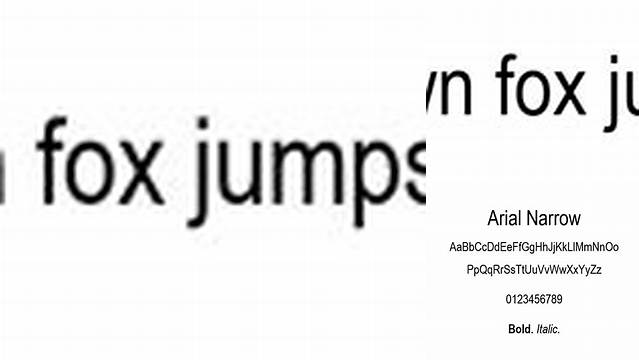
What is Arial Narrow?
So, what exactly is Arial Narrow? Well, it's a condensed version of the popular Arial typeface. Think of it as Arial's slimmed-down sibling. Because of this, it's super useful for fitting more text into a smaller space. This makes it ideal for headlines, subheadings, and any area where you need to convey a lot of information without taking up a ton of room. The font's design is clean, clear, and incredibly versatile, which is why it's been a go-to choice for so many years.
Arial Narrow maintains the same characteristics of Arial, such as its readability and neutral feel, but with a narrower width. This condensed design is perfect for creating a modern look and enhancing visual hierarchy. You'll find it frequently used in various contexts, from business documents and presentations to website design and branding materials. One of the main advantages of using Arial Narrow is its ability to save space. When designing websites or documents, sometimes you need to cram a lot of words into limited space. Arial Narrow helps you achieve this without sacrificing legibility. Its condensed nature allows you to keep headlines concise and present a lot of information in a clean, organized way. Its flexibility makes it a versatile option for designers who value both aesthetics and functionality. It is also incredibly easy to read, making it a great choice for extensive body text. The font has been around for a while, and its familiar look gives it a sense of reliability and trustworthiness, making it a fantastic option for both personal and professional projects. This is an excellent choice for anyone looking to optimize their content’s space and readability. In short, it's a font that offers both style and efficiency.
Using Arial Narrow on Your Website
Okay, so you've got Arial Narrow downloaded. Now what? Let's talk about how to make it shine on your website. The key is to use it strategically to create a visually appealing and user-friendly experience. Because it's a condensed font, it's fantastic for headers, subheadings, navigation menus, or short bursts of text where you want to maximize space. Avoid using it for large blocks of body text, as the narrowness can sometimes make it a little harder to read for extended periods. Think of it as a tool to create visual hierarchy, drawing attention to key elements and making your content easier to scan.